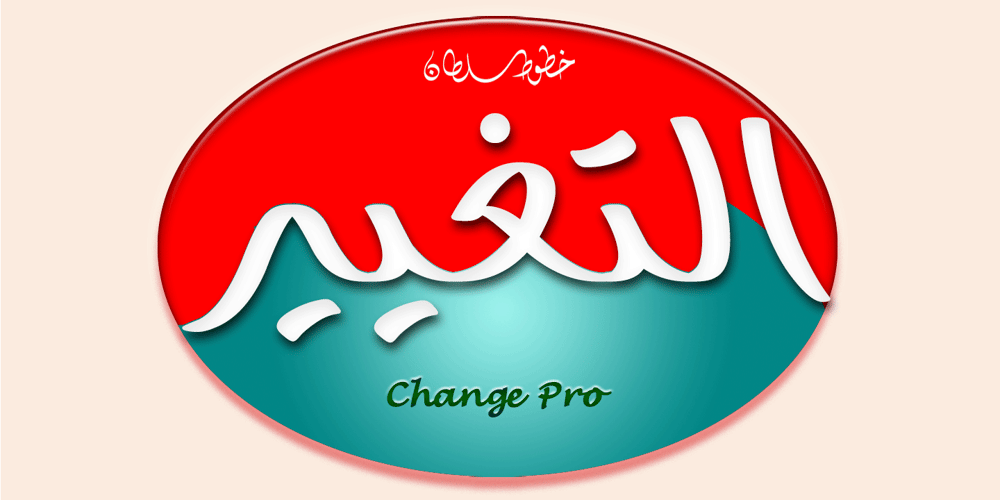
SF Change Pro Font Family was designed by Sultan Maqtari and published by Sultan Fonts. SF Change Pro contains 2 styles and family package options. Change is An Arabic and Latin text typeface for desktop applications. This Font Family development and extension of the Old sultan font “change”Here you will find a change in many letters, along with two types of regular and bold fonts, as well as a change in all Latin letters.The font includes a matching Latin design and support for Arabic, Persian, Kurdish, and Urdu.Designer: Sultan MaqtariDesign date: 2020Publisher: Sultan Fonts